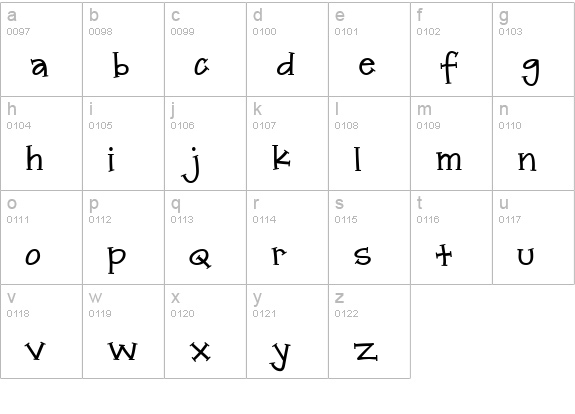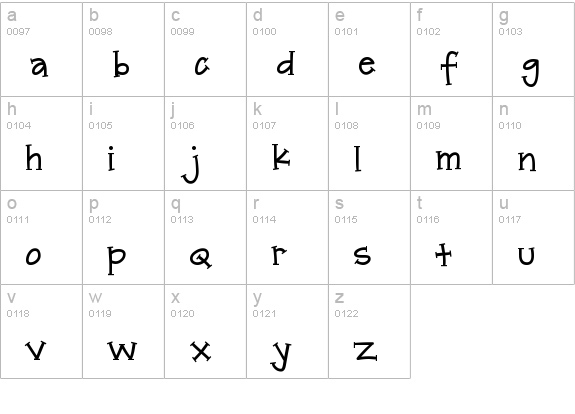
CK Sassy Font Details
Introducing CK Sassy font, a playful and vibrant typeface that exudes personality and charm. With its bold and modern design, CK Sassy is perfect for adding a touch of fun to your designs. This free font is sure to make your projects stand out with its unique style and versatility. You can easily download CK Sassy for free at FontsMarket.com, where you will find a wide range of high-quality fonts to enhance your creative projects. Whether you're designing posters, invitations, or branding materials, CK Sassy is a great choice to add a pop of excitement and energy. Don't miss out on this fantastic free font – download CK Sassy today and let your creativity shine!